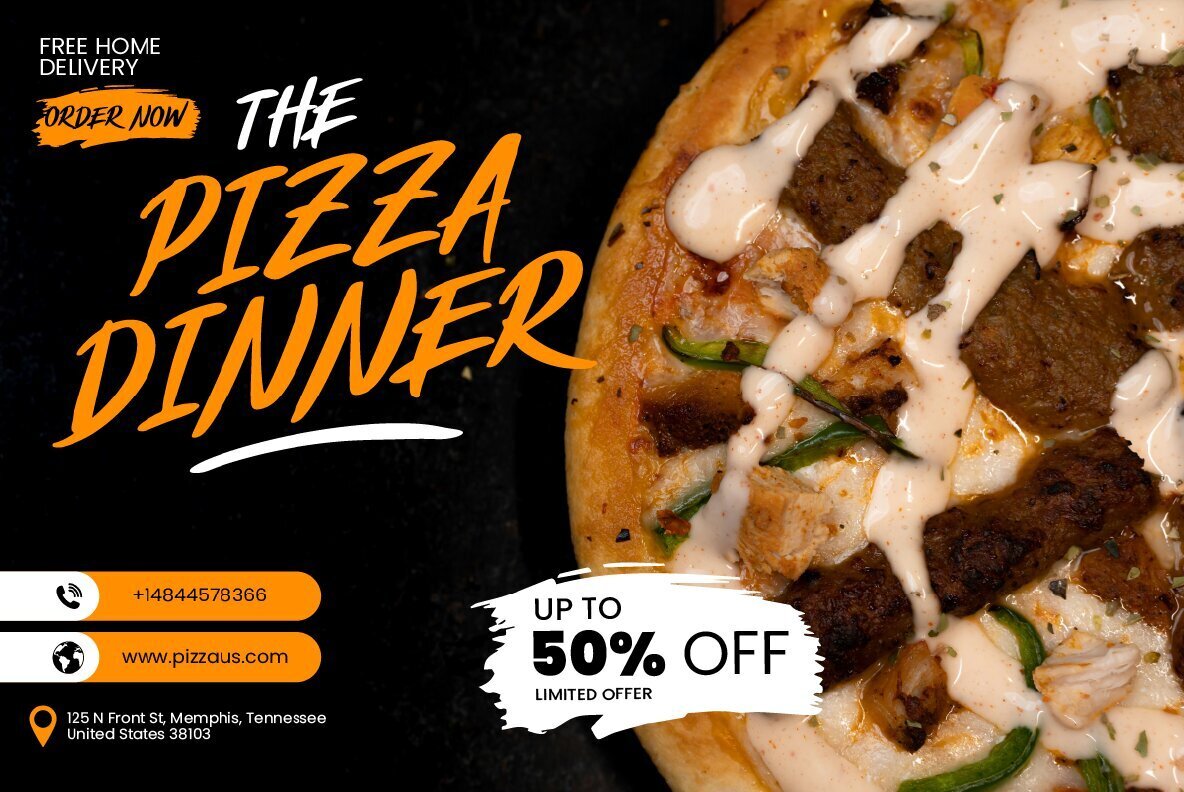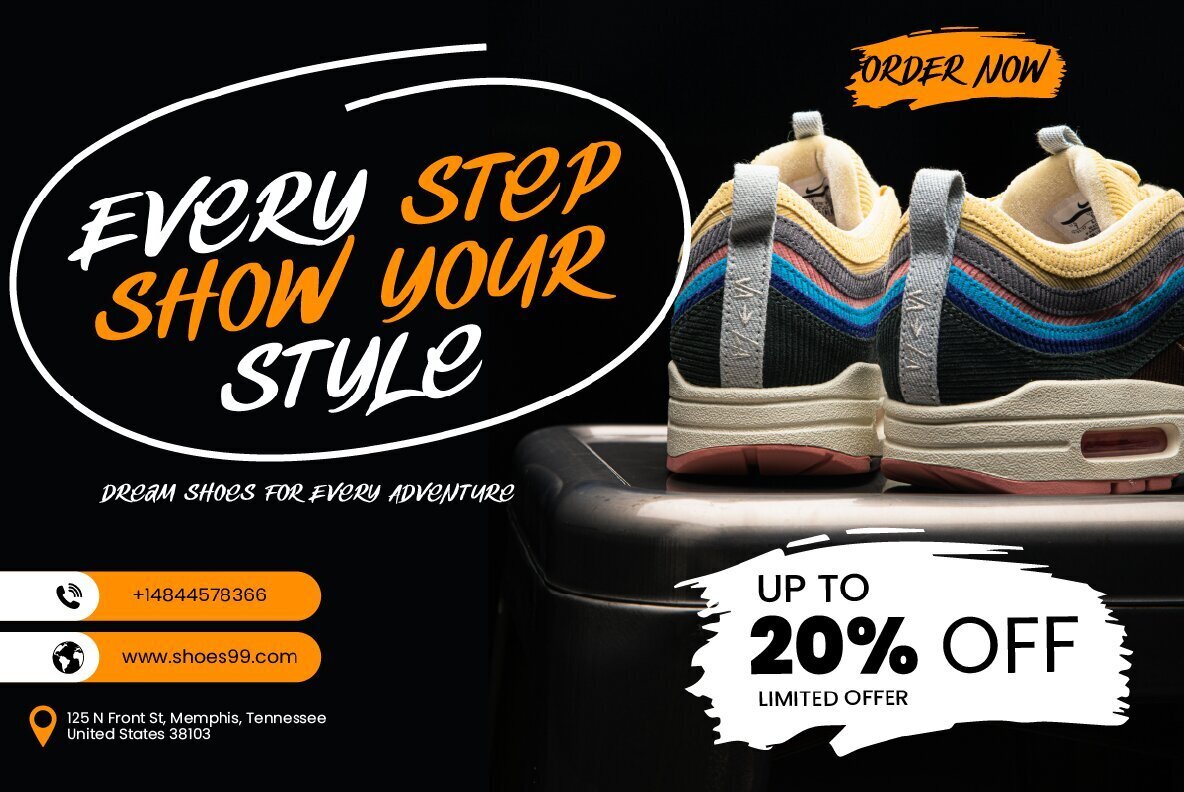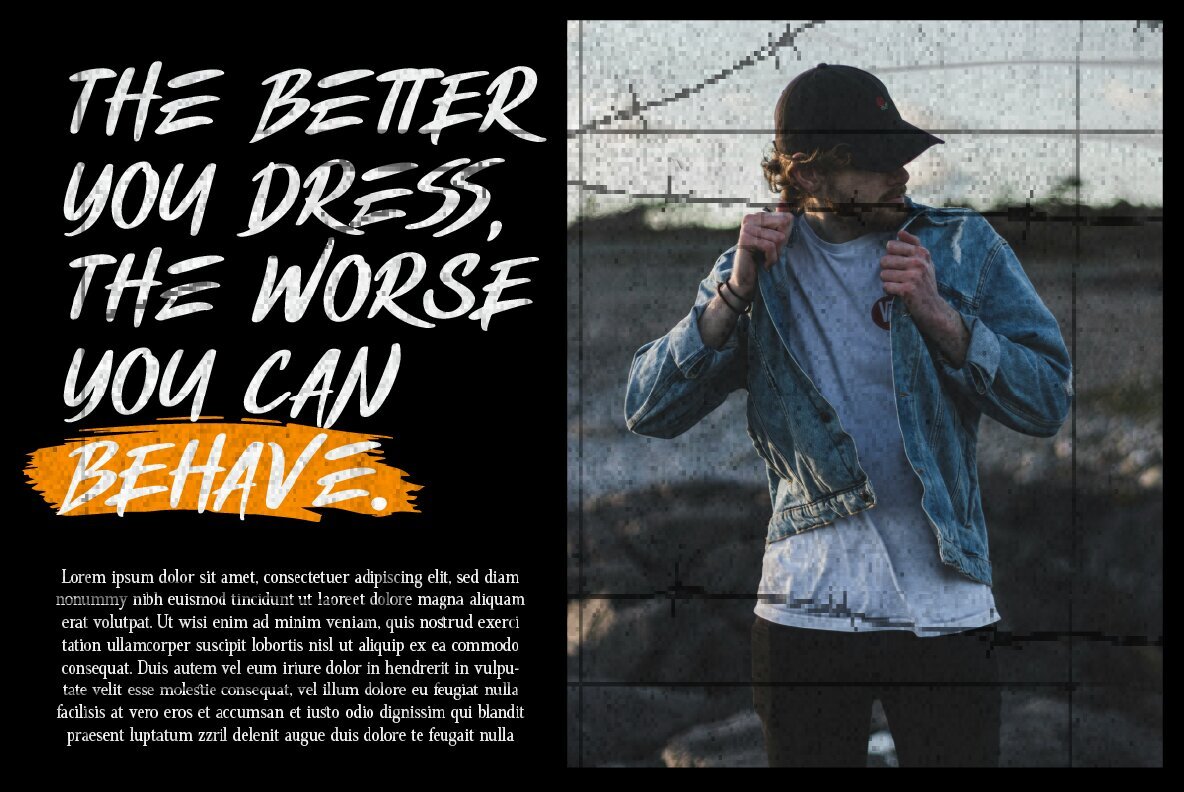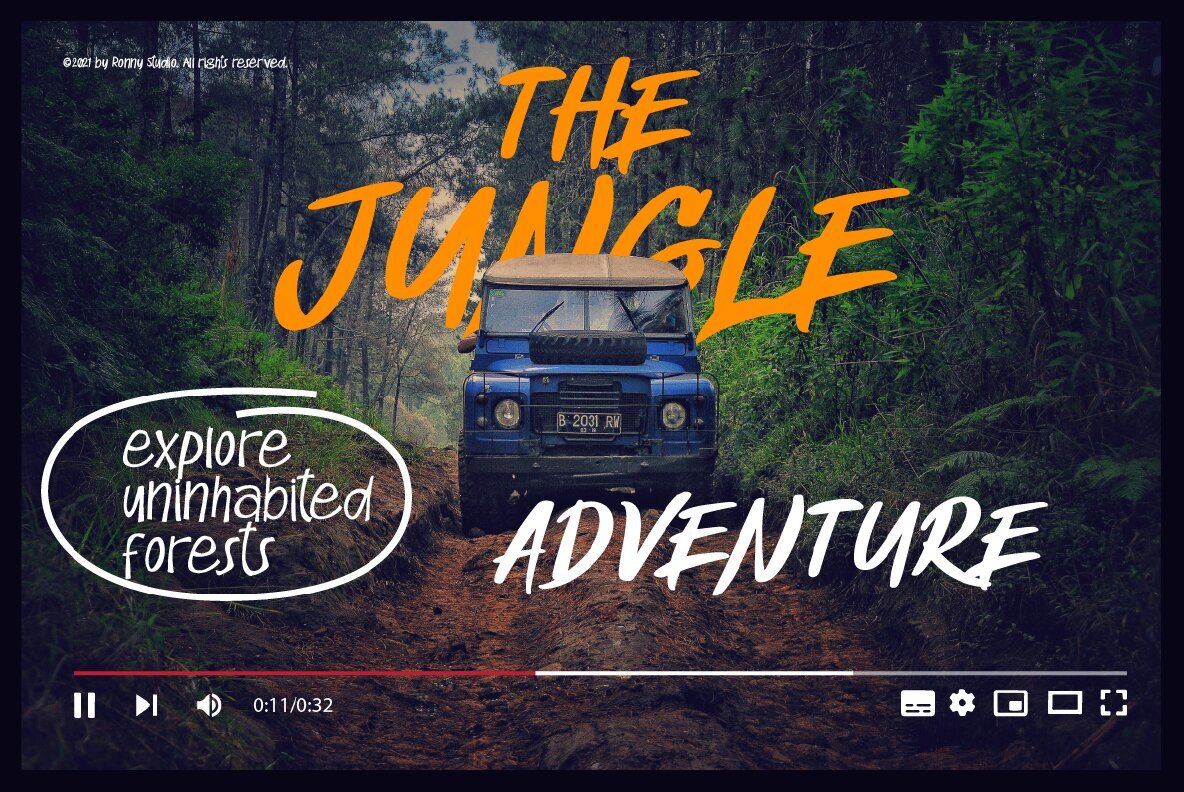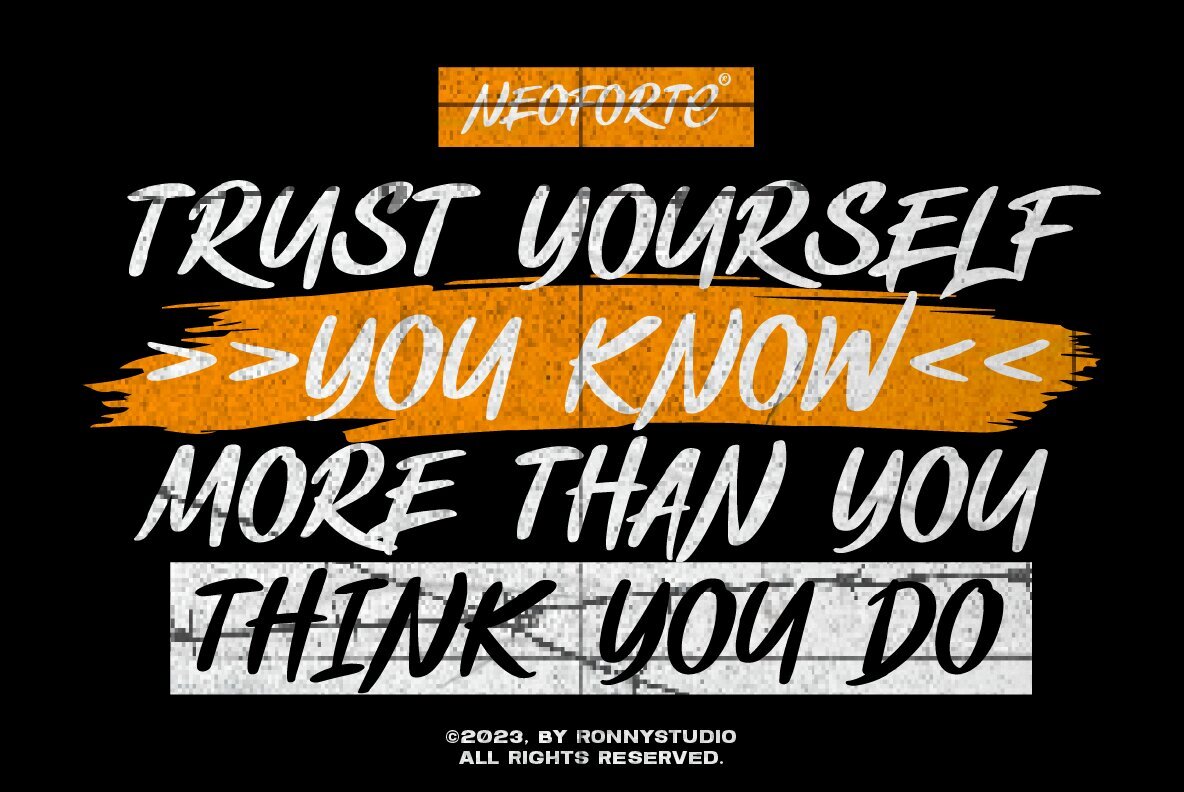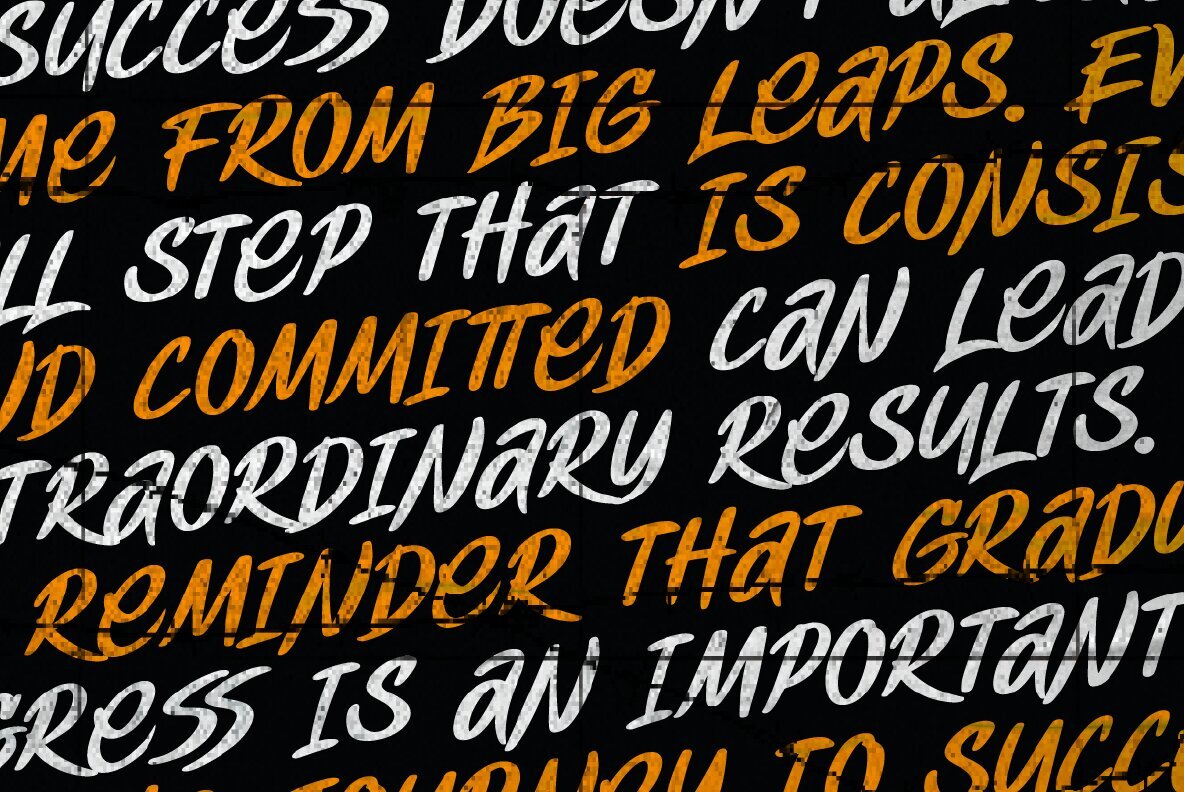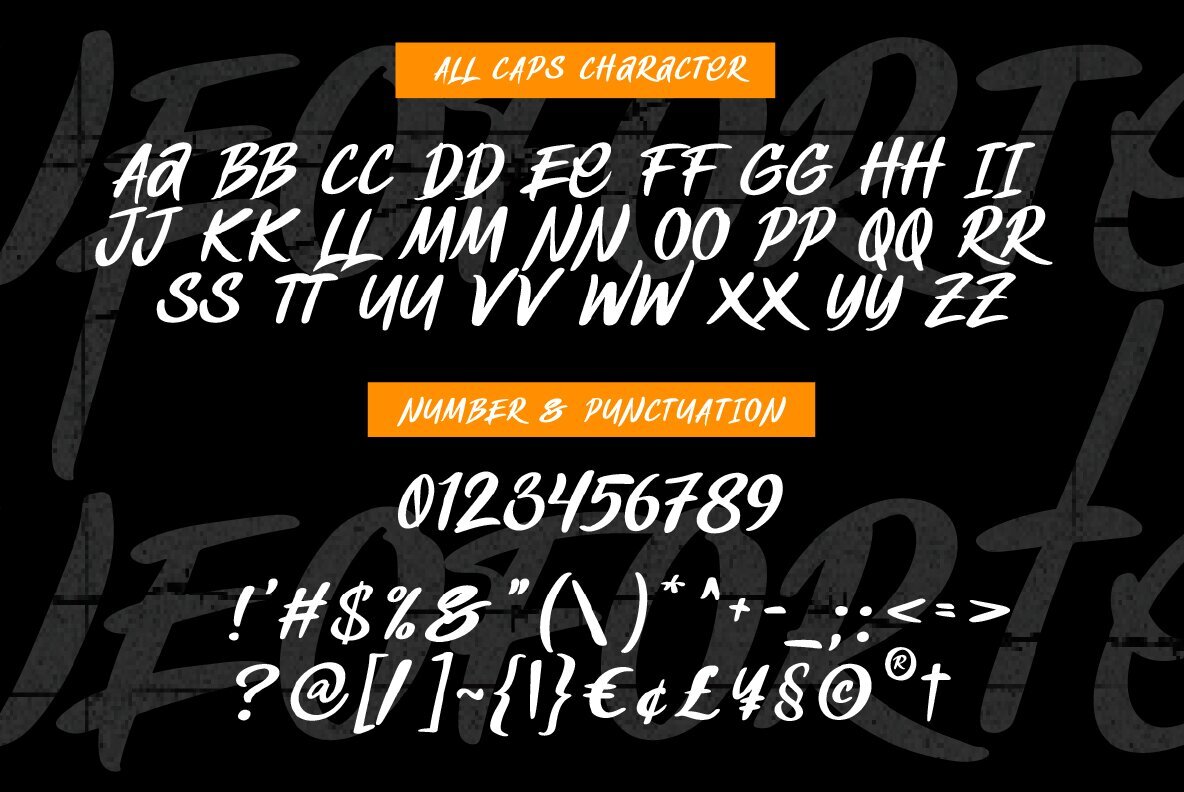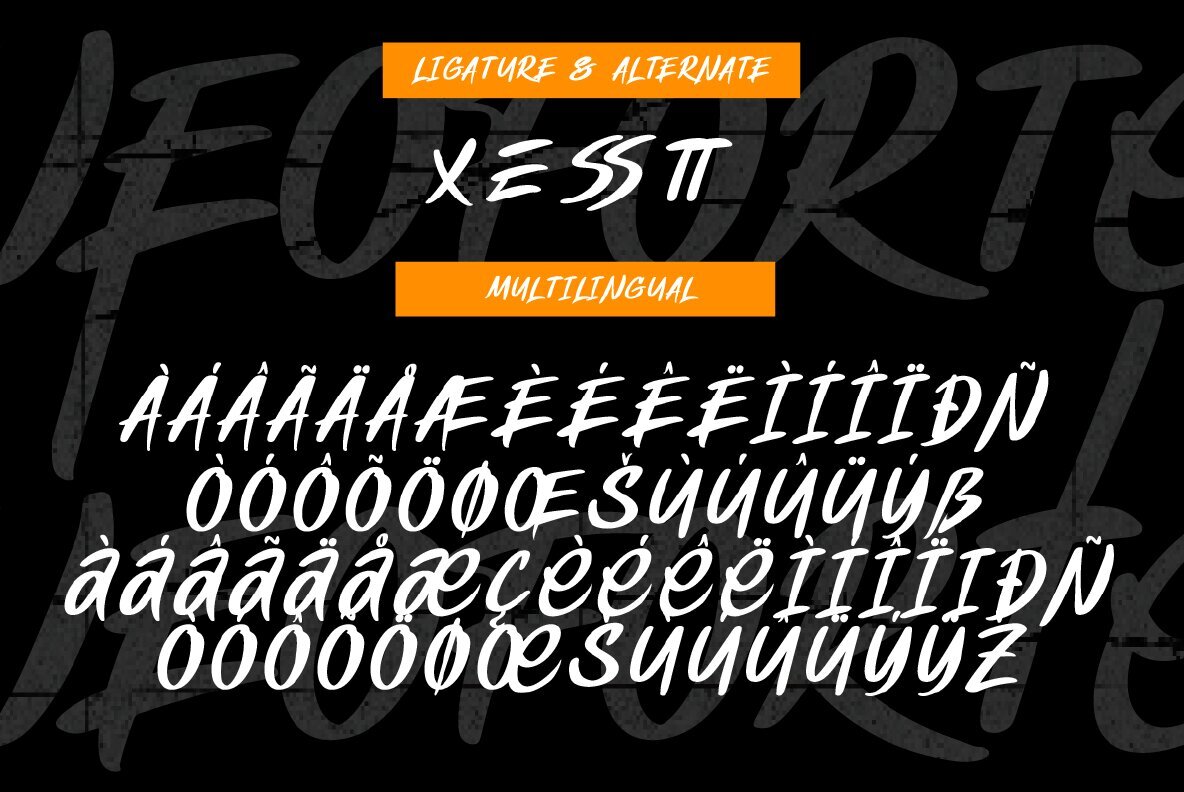
Neoforte Font
Neoforte is a bold and dynamic street brush font that brings a raw, hand-painted look to your designs. With 217 unique glyphs, it's ideal for creating eye-catching branding, striking posters, vibrant social media graphics, and standout merchandise. This all-caps font ensures your message gets noticed with its commanding presence.
Neoforte includes uppercase and lowercase variations, numbers, punctuation, alternates, ligatures, and swashes. Additionally, its multilingual support makes it a versatile choice for global projects. PUA encoding ensures easy access to all glyphs and special characters. Enhance your designs with the energetic style of Neoforte, whether you're working on print or digital media.